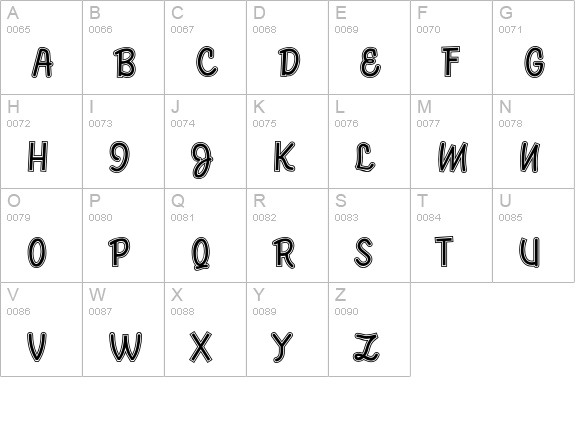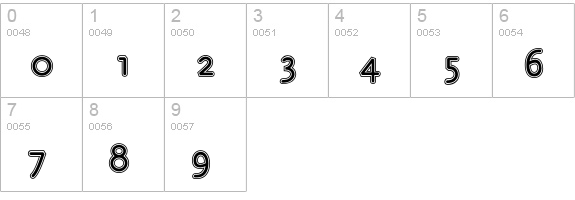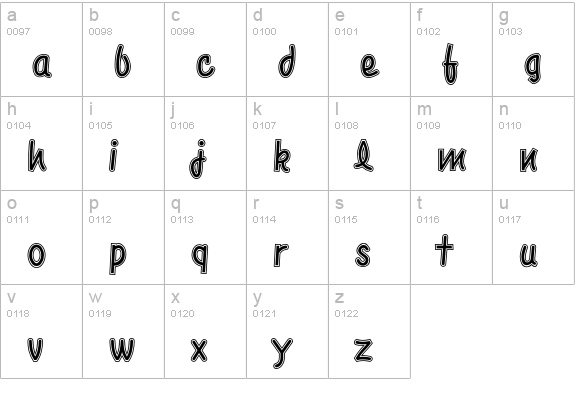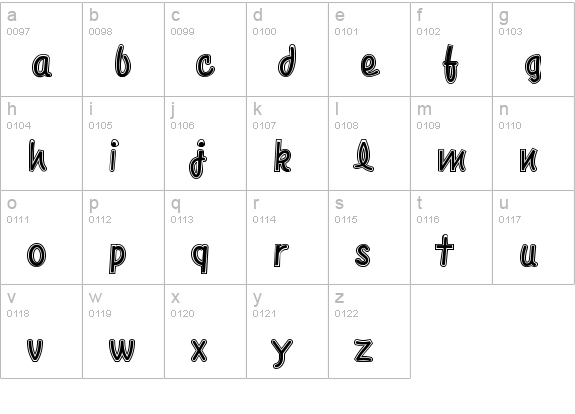
ElliottsVenusDioxideOutlined Font Details
ElliottsVenusDioxideOutlined font is a stunning display typeface that exudes elegance and sophistication. Its intricate outlines and unique design make it a perfect choice for adding a touch of charm to any project. This font is versatile and can be used for a wide range of purposes, from branding to invitations to social media graphics. The best part about ElliottsVenusDioxideOutlined font is that it is completely free to download at FontsMarket.com. Yes, you read that right – you can get your hands on this beautiful font without spending a dime. Don't miss out on the opportunity to elevate your designs with this exquisite typeface that is sure to make a lasting impression. Download ElliottsVenusDioxideOutlined font today and let your creativity shine!